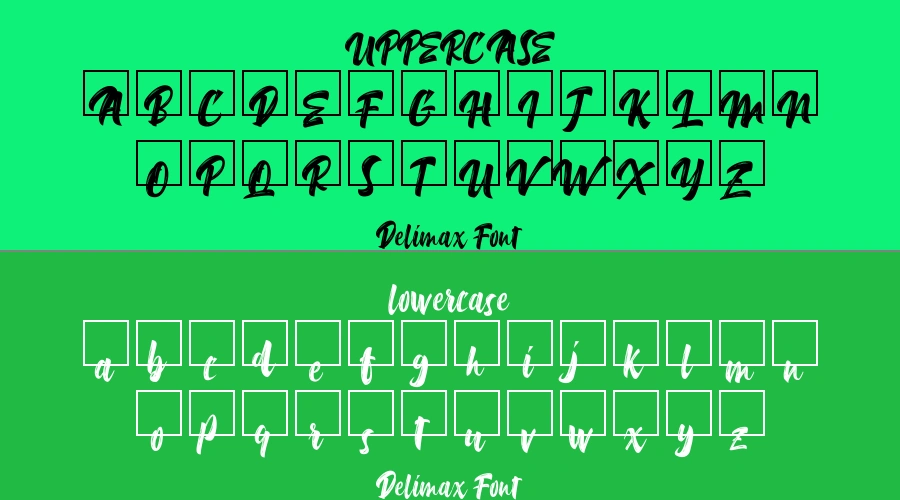
About Delimax Font
Delimax Font stands out for its distinctive combination of precise joints and professionalism. Ideal for advertising campaigns, it provides the consistency and design heritage that professional projects demand. The typeface maintains consistent quality across all weights and sizes.
Key features include refined precise alignment and practical brand signatures, enhancing typographic expression. In hero imagery applications, Delimax Font demonstrates exceptional headline impact. The beak formation and institutional acceptance contribute to its distinctive character and professional appeal.